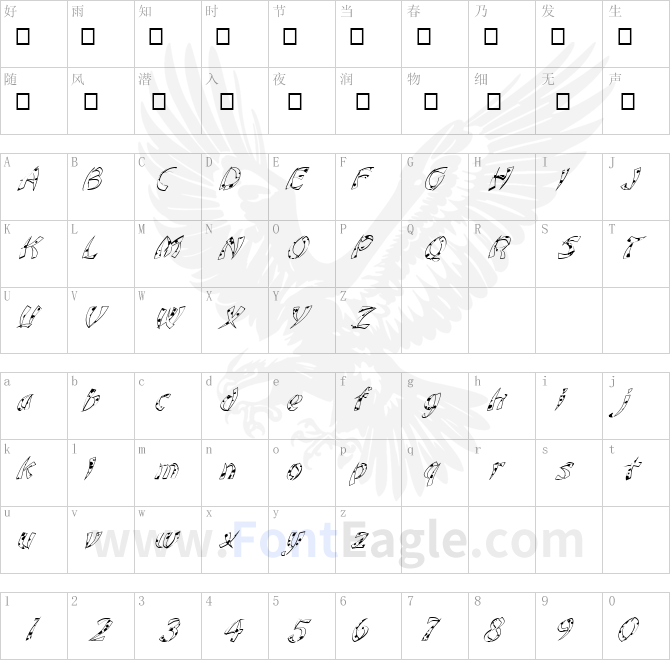
FZ UNIQUE 22 SPOTTED ITALIC Normal.ttf Font Image
- Font name:FZ UNIQUE 22 SPOTTED ITALIC
- Font Subfamily ID:FZ UNIQUE 22 SPOTTED ITALIC
- Font Full Name:FZ UNIQUE 22 SPOTTED ITALIC